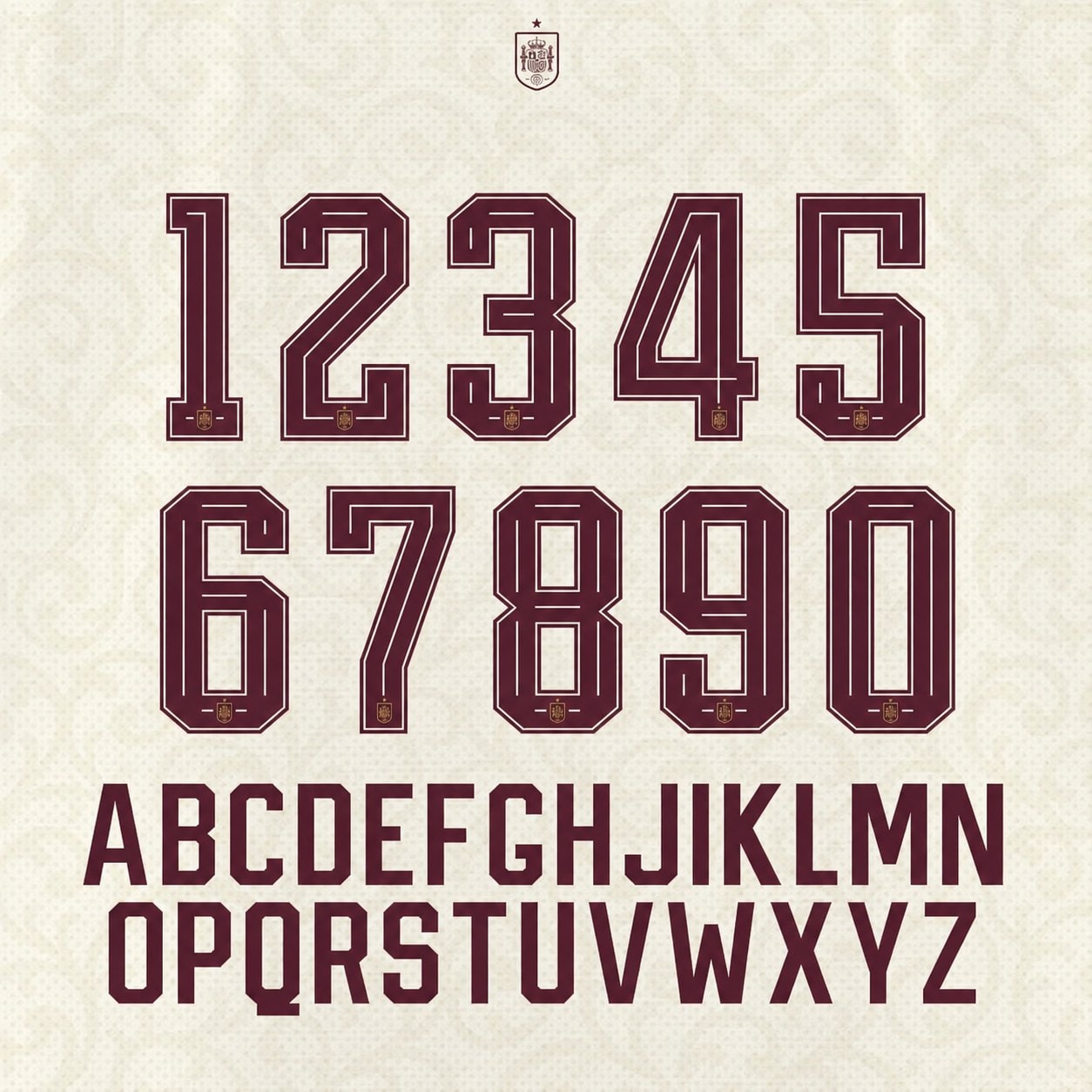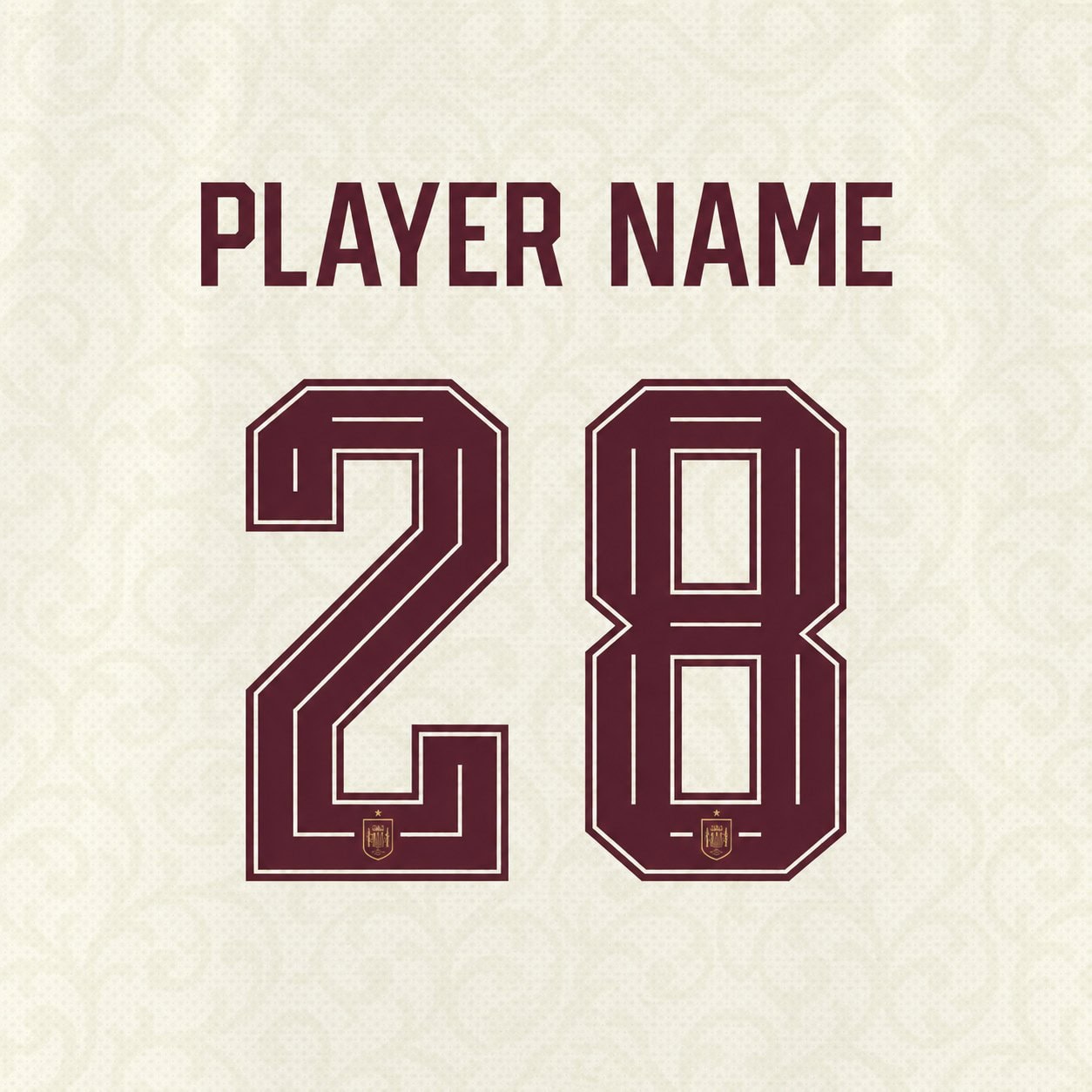
Complete Spain World Cup 2026 font set — every letter and every number in one kit, in the lettering style of the 2026 national team shirt, burgundy colourway as shown.
- Full set included: all letters A–Z + all numbers 0–9, exactly as shown
- Fine crest detailing inside the numbers